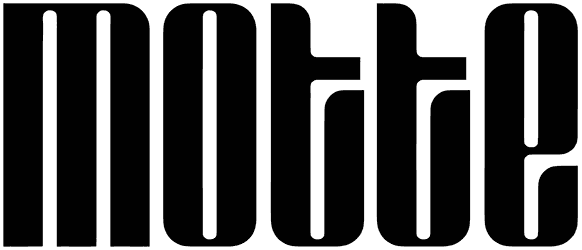
Motte Font
Whenever there’s not enough room in your design for your words, Motte will be a great way to get things done. This condensed font is a great way to capture everyone’s imagination in a limited time without having to take up all the space.
Once you discover its friendly tone, this tall font becomes a part of your routine. Let’s just say those bold letters with their nice attitude and ligatures belong to your apparel branding designs, cafe signs, etc.